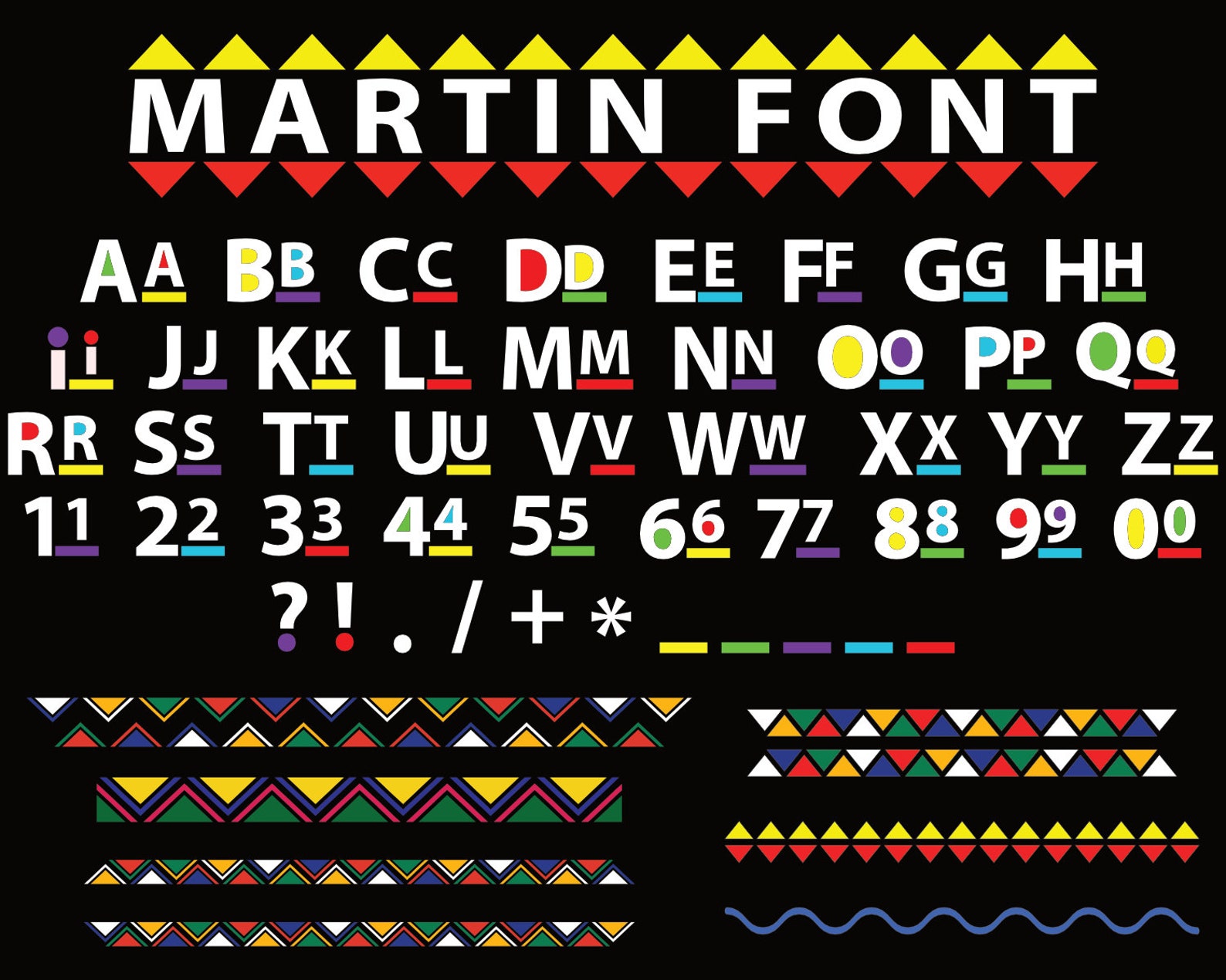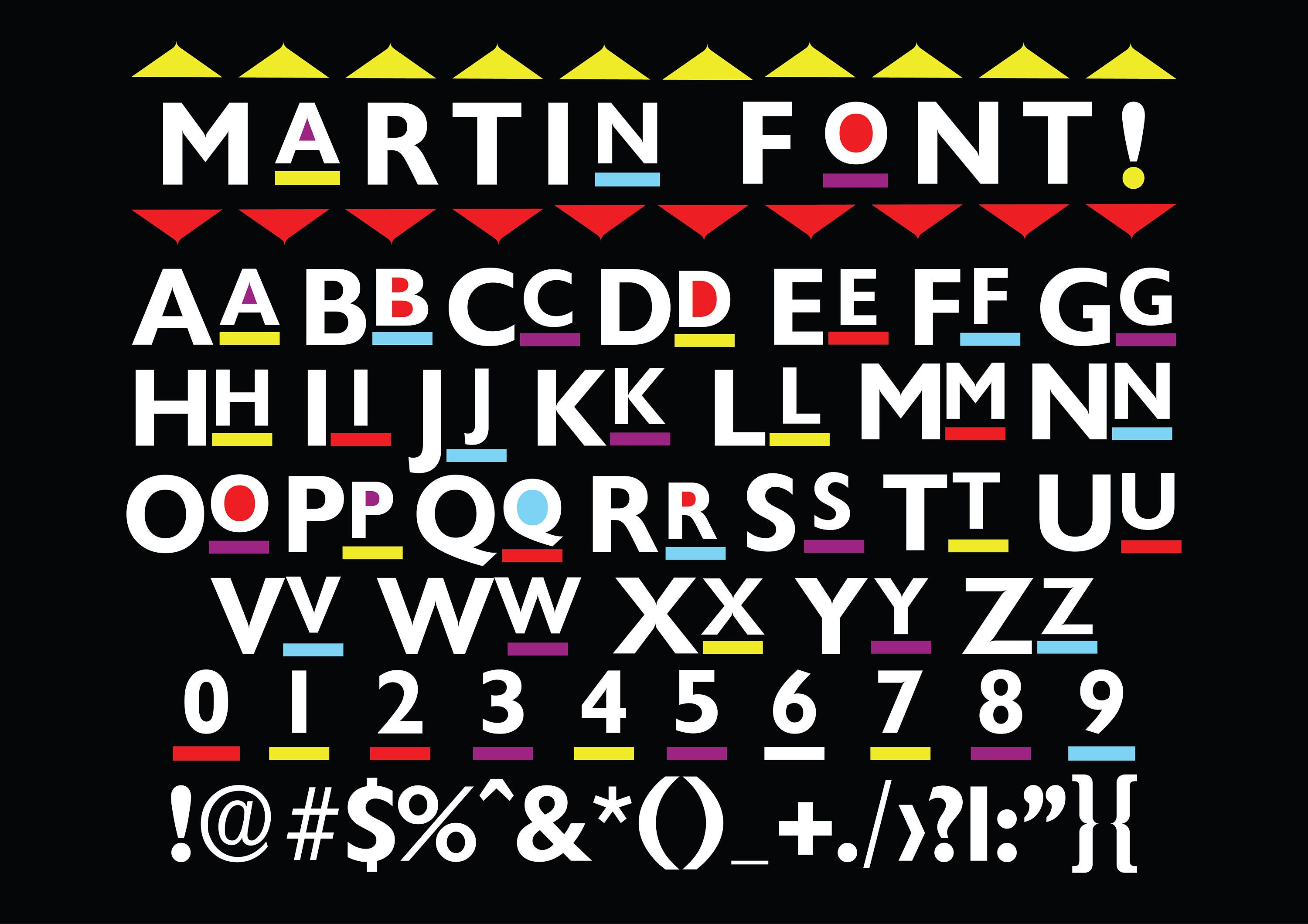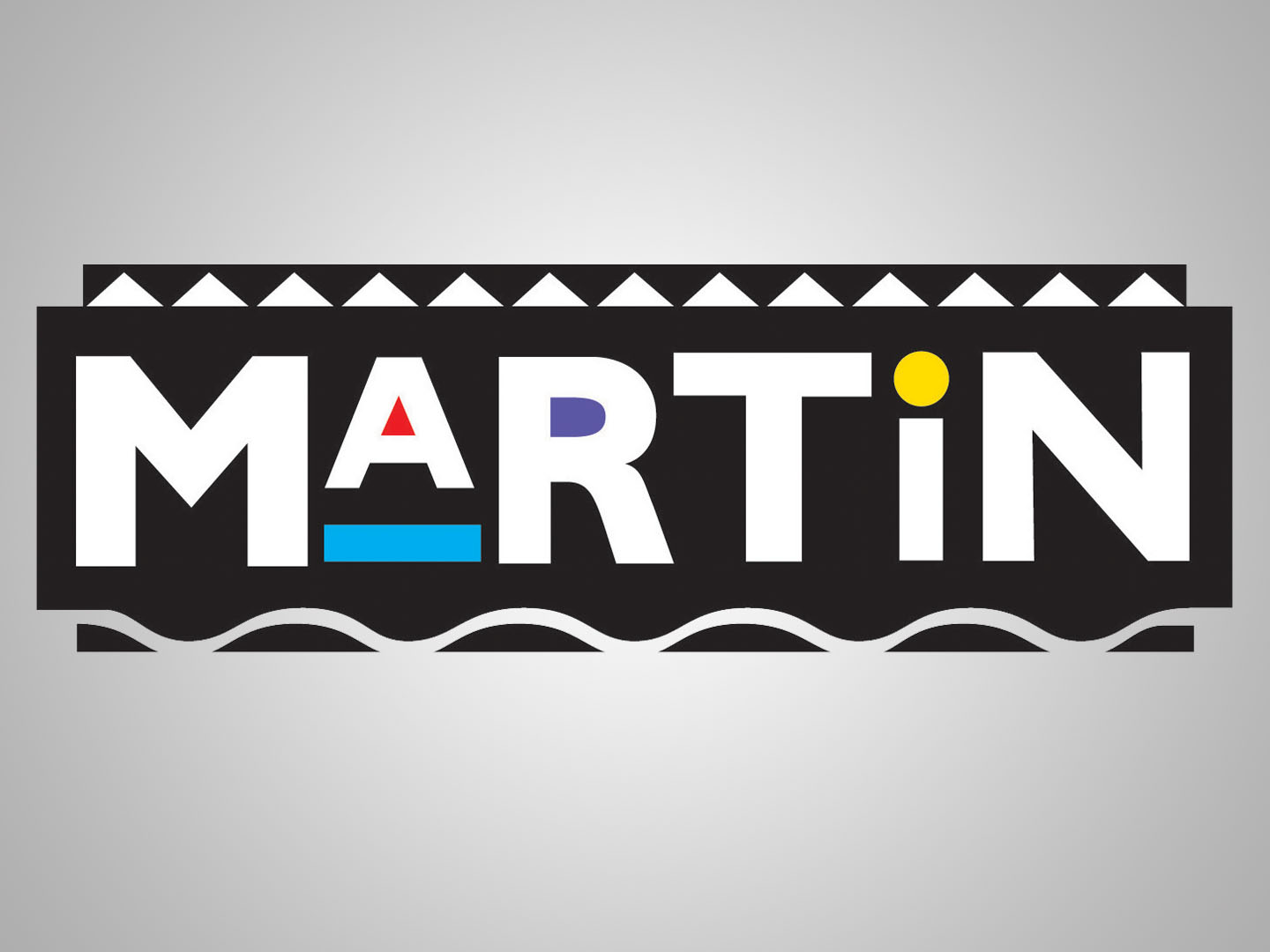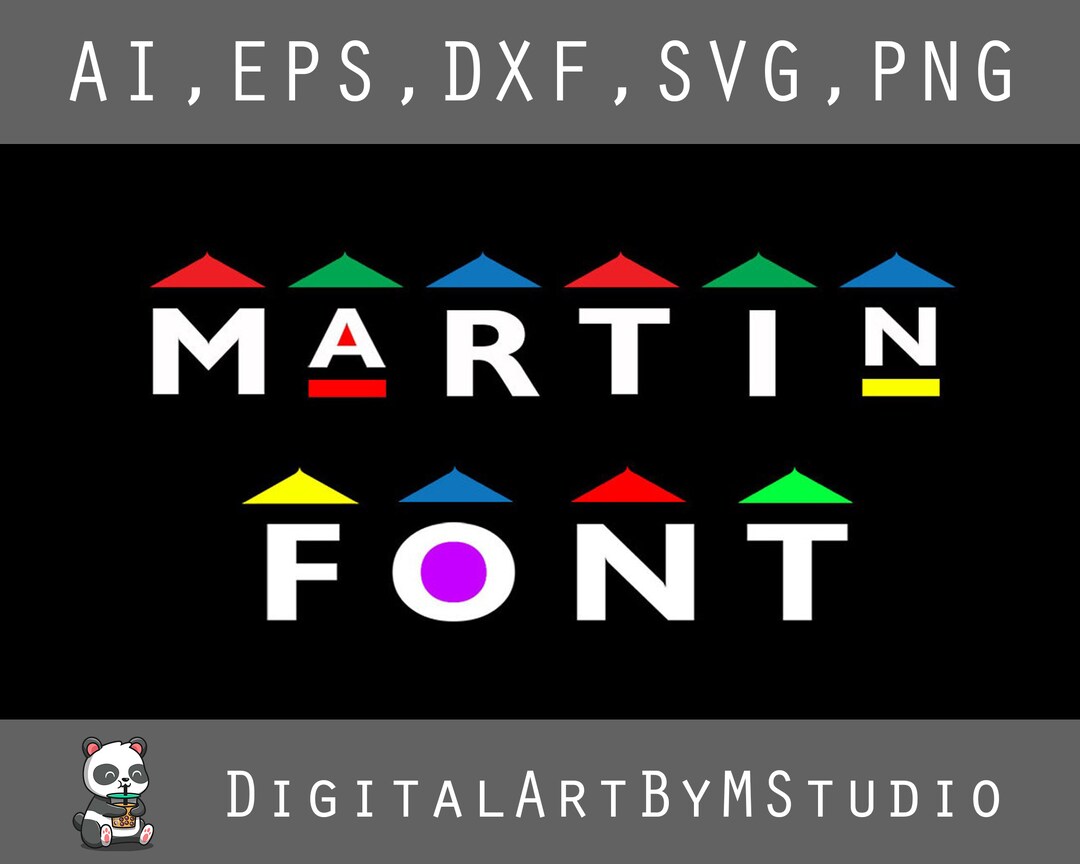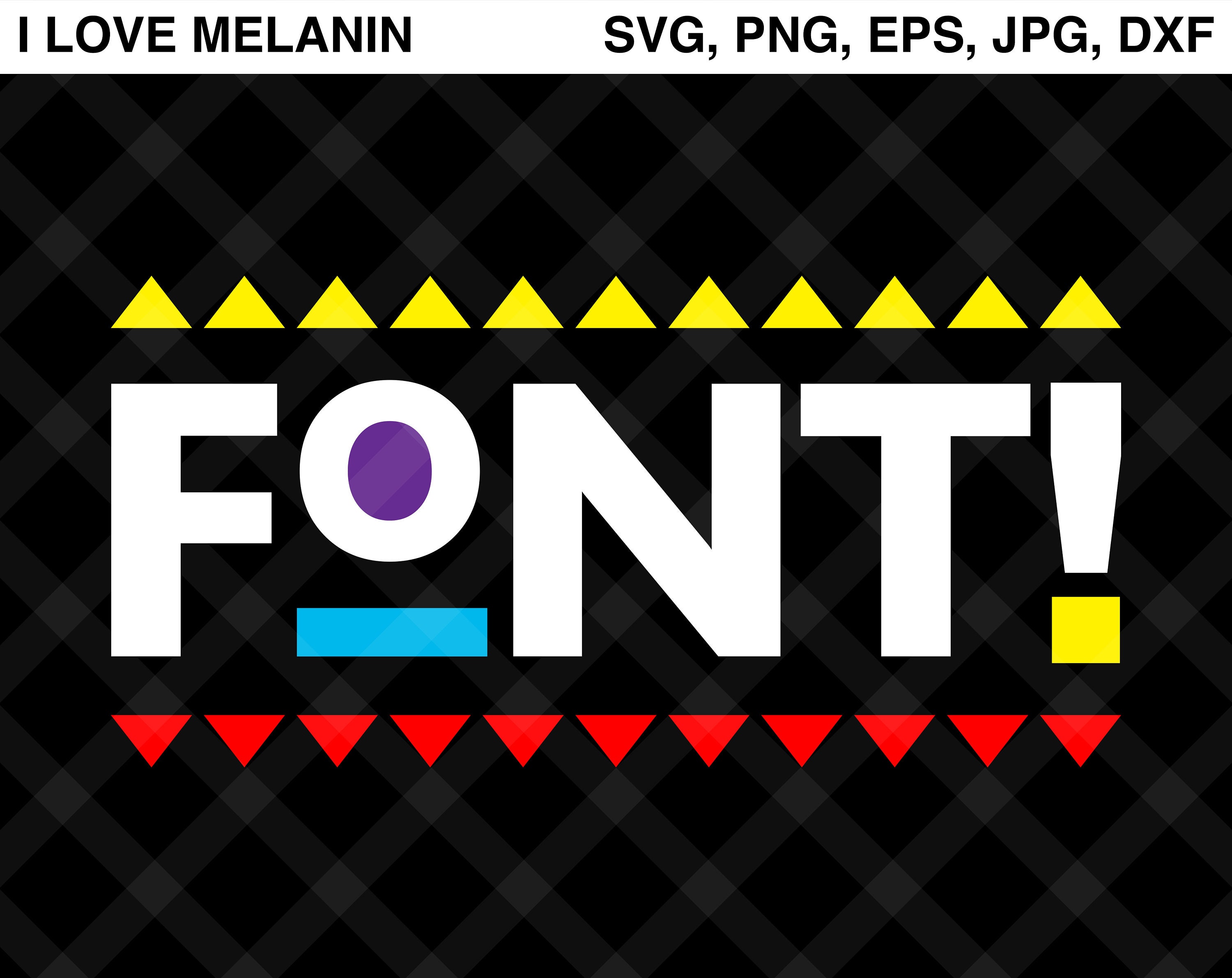
Martin Tv Show Font Generator - Web martin font free download. Martin font is a sans serif typeface that was used for the logo of the television series known as. The font used for the. Famous fonts is the first font archive on the web to collect only fonts used in the tv shows, movies,. Can someone assist in identifying the font. Web martin bold regular font. Web martin tv show font. Jan 07, 2013 at 07:08. Web welcome to famous fonts! To introduce the martin font, a font that attracts the attention and special attention of.
Can someone assist in identifying the font. Famous fonts is the first font archive on the web to collect only fonts used in the tv shows, movies,. Web martin font free download. Download martin bold regular font free now. To introduce the martin font, a font that attracts the attention and special attention of. Martin font is a sans serif typeface that was used for the logo of the television series known as. Web martin bold regular font. The font used for the. Web martin tv show font. Web welcome to famous fonts!
Web martin tv show font. Can someone assist in identifying the font. Jan 07, 2013 at 07:08. Web martin font free download. To introduce the martin font, a font that attracts the attention and special attention of. Martin font is a sans serif typeface that was used for the logo of the television series known as. Web welcome to famous fonts! Web martin bold regular font. Download martin bold regular font free now. Famous fonts is the first font archive on the web to collect only fonts used in the tv shows, movies,.
Can someone assist in identifying the font. The font used for the. Web welcome to famous fonts! Martin font is a sans serif typeface that was used for the logo of the television series known as. Famous fonts is the first font archive on the web to collect only fonts used in the tv shows, movies,.
Web welcome to famous fonts! The font used for the. Martin font is a sans serif typeface that was used for the logo of the television series known as. Web martin tv show font. Famous fonts is the first font archive on the web to collect only fonts used in the tv shows, movies,.
The font used for the. Web welcome to famous fonts! To introduce the martin font, a font that attracts the attention and special attention of. Download martin bold regular font free now. Famous fonts is the first font archive on the web to collect only fonts used in the tv shows, movies,.
Web martin font free download. To introduce the martin font, a font that attracts the attention and special attention of. Martin font is a sans serif typeface that was used for the logo of the television series known as. Famous fonts is the first font archive on the web to collect only fonts used in the tv shows, movies,. Web.
Web martin tv show font. Web martin bold regular font. Web martin font free download. Famous fonts is the first font archive on the web to collect only fonts used in the tv shows, movies,. Download martin bold regular font free now.
Can Someone Assist In Identifying The Font.
Download martin bold regular font free now. Martin font is a sans serif typeface that was used for the logo of the television series known as. Web martin font free download. The font used for the.